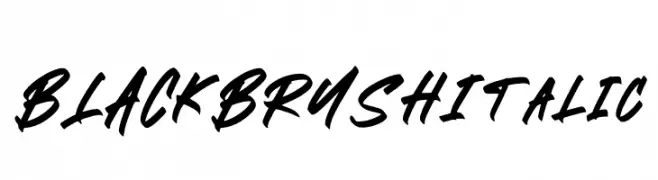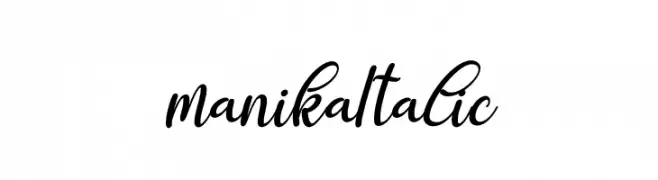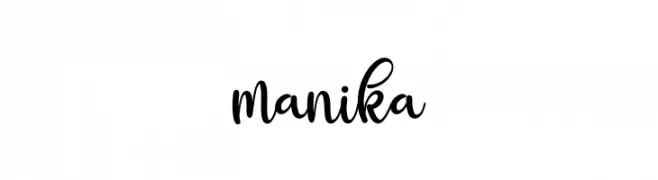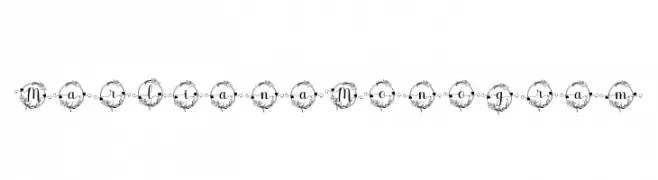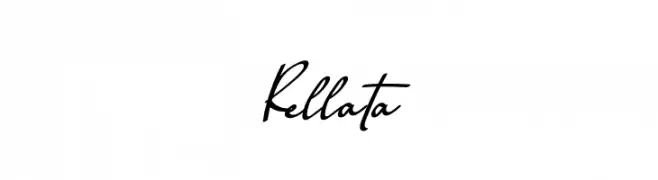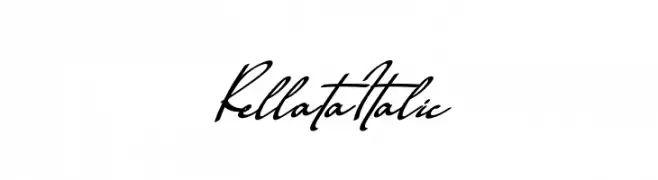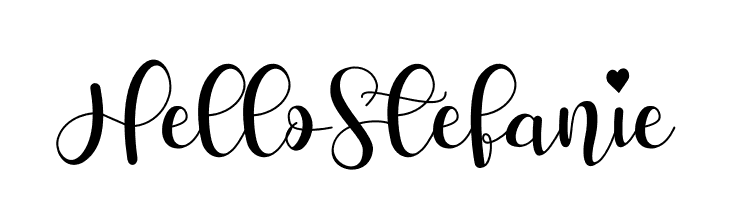
A bold, brush-style font with dynamic, slanted strokes and a handwritten feel.
A lively and elegant script font with flowing, cursive letterforms.
A modern, flowing cursive font with elegant connections and a dynamic style.
A playful, handwritten script font with bold, smooth curves and unique flourishes.
An elegant, flowing script font with a natural handwritten style.
A graceful, cursive script font with an elegant, italicized style.
An elegant monogram font with decorative wreath encasements and classic serif elements.
A dynamic and expressive cursive script font with elegant flow.
A dynamic, cursive font with fluid strokes and elegant slant.
A playful and elegant script font with flowing curves and decorative swashes.